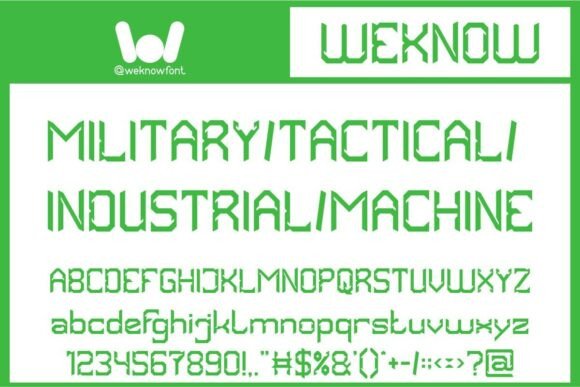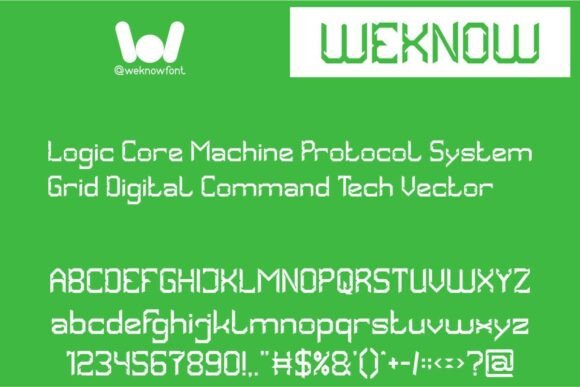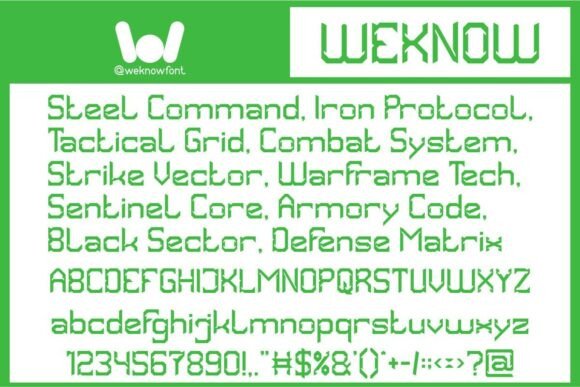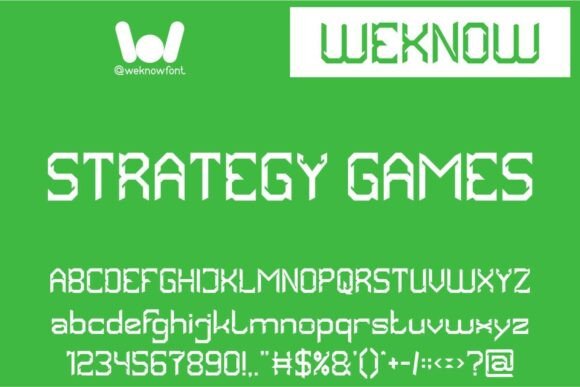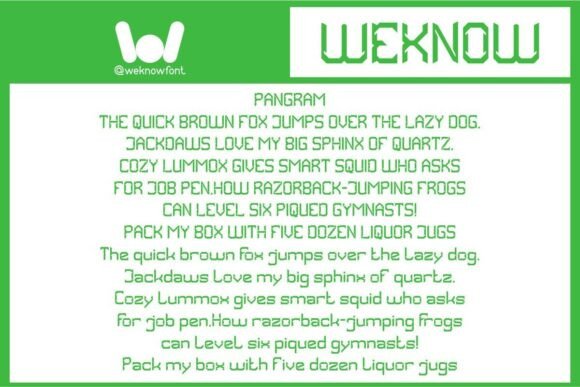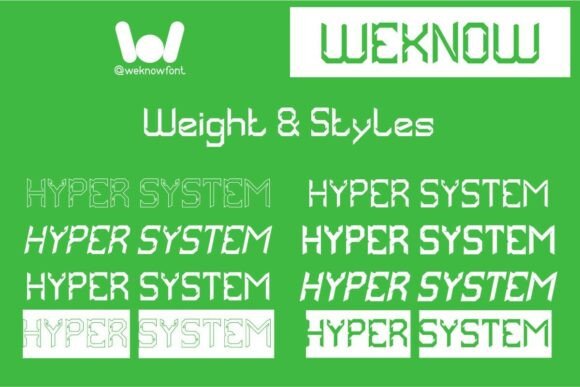
Introduction to Hyper System Font
Have you ever stared at a blank canvas, your creative juices flowing, but struggling to find the perfect font to bring your vision to life? That’s exactly what happened to us when we first discovered the Hyper System Font. Its futuristic design and sleek lines transported us to a world where technology and art collided, sparking a fire of inspiration within us.
As designers, we’re always on the lookout for that one game-changing design resource that elevates our creative project to the next level. And that’s exactly what the Hyper System Font delivers – a high-quality, versatile font that’s perfect for any project, from corporate identities to music labels and film titles.
With its transparent background and cutting-edge aesthetic, the Hyper System Font is a free download that’s sure to revolutionize your design workflow. So why settle for ordinary when you can infuse your world with the future of design?
- High-quality design resource for creative projects, ideal for modern and futuristic themes.
- Includes a wide range of glyphs and characters, making it suitable for multilingual projects.
- Unique characteristics: Geometric shapes, bold lines, and a futuristic aesthetic make it perfect for science fiction, technology, and gaming projects.
As a designer, I’m always on the lookout for high-quality fonts that can elevate my creative projects. The Hyper System Font caught my attention, and I was eager to see if it lived up to its promise.
- ✨ High-quality design: The Hyper System Font has a clean and modern aesthetic that’s perfect for a variety of design projects.
- ⚠️ Limited font styles: While the font itself is well-designed, it’s a bit limited in terms of available font styles.
- ⚠️ Not ideal for large text: I found that the font can be a bit difficult to read when used in large text sizes.
Overall, I’m impressed with the Hyper System Font, and I think it’s a great addition to any designer’s toolkit. While it may have some limitations, its high-quality design and free download make it a great resource for creative projects.
For a high-quality design, use the font with a transparent background to ensure the text stands out. You can also experiment with different font sizes and styles to create a unique look for your creative project.
Hyper System Font is perfect for designing logos, business cards, and other marketing materials where a modern and sleek look is desired. It’s also great for creating social media graphics and presentations.